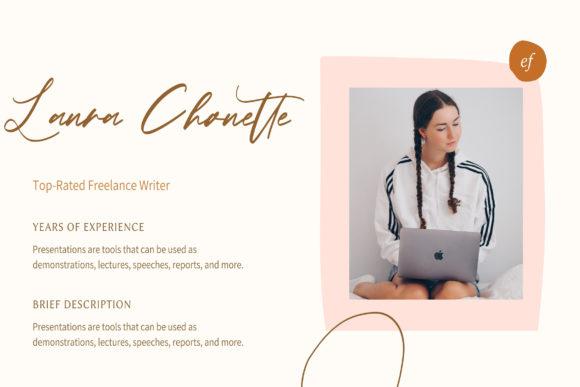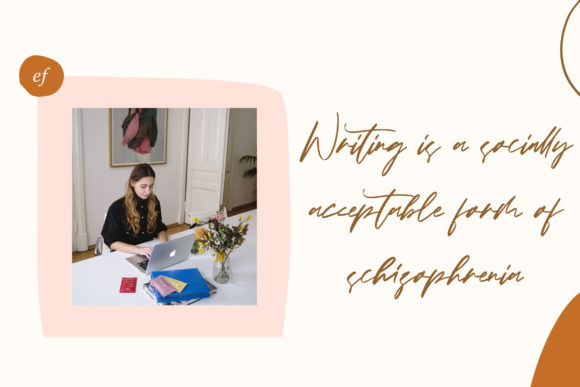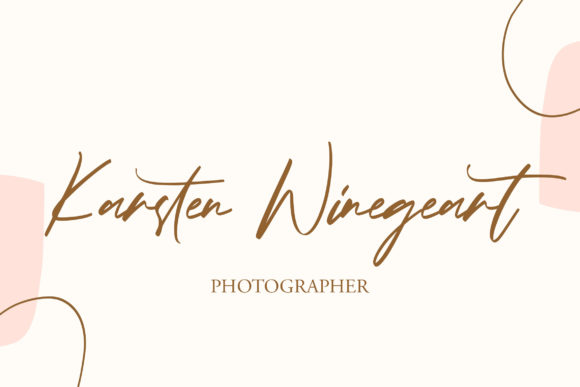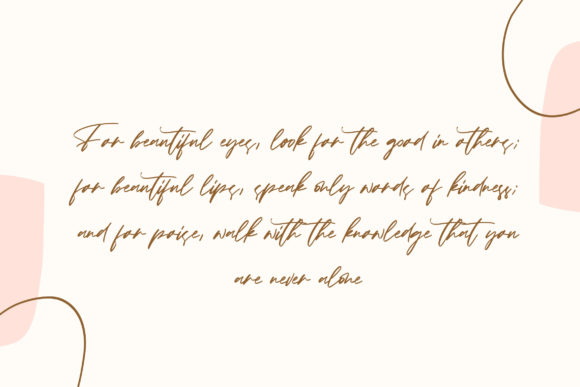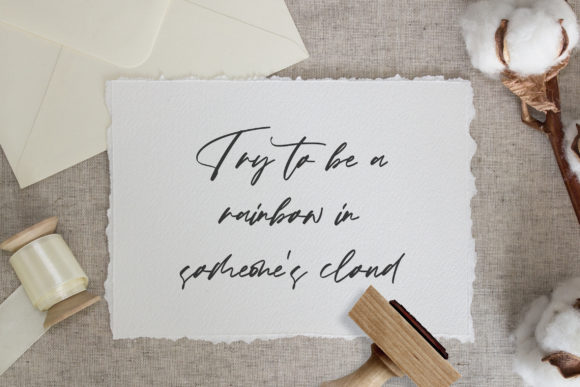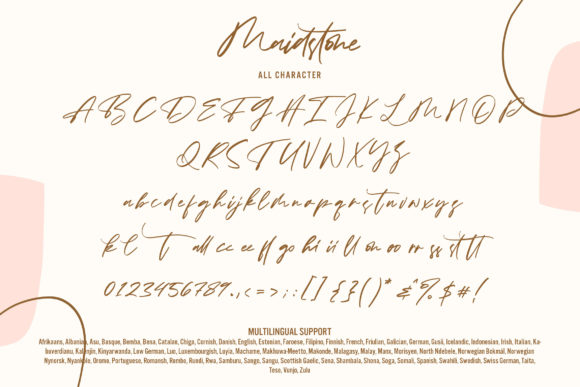
Introduction to Maidstone Font
You know that moment when you’re working on a creative project and you just can’t seem to find the right font to bring your vision to life? The words are flowing, the design is taking shape, but something’s missing. That’s when you stumble upon a hidden gem – a font that elevates your entire project. For many designers, that gem is the Maidstone Font.
This lovely and cursive script font is a game-changer for any creative project. Its high-quality design makes it a valuable resource for designers looking to add a touch of elegance to their work. Whether you’re working on a free download or a commercial project, the Maidstone Font is sure to impress. With its transparent background and versatile style, it’s the perfect addition to any design library.
What sets the Maidstone Font apart is its ability to enhance any creation, from wedding invitations to blog posts. Its high-quality design and free download options make it an attractive choice for designers of all levels. In this article, we’ll take a closer look at the Maidstone Font and explore its many benefits for designers.
Key Features of Maidstone Font
- Includes a comprehensive character set, covering Latin, Cyrillic, and Greek alphabets, making it suitable for multilingual designs.
- Designed with a modern aesthetic, Maidstone Font is perfect for contemporary creative projects that require a clean and sophisticated look.
Honest Review: Maidstone Font
I recently came across the Maidstone Font and was excited to dive in and see what it had to offer. As a designer, I’m always on the lookout for high-quality fonts to use in my creative projects.
What works well: ✨ High-quality design, ✨ Clear and readable text, ✨ Free download option.
However, I did notice a few limitations: ⚠️ Limited character set, ⚠️ Not suitable for large-scale commercial projects.
Overall, I’m impressed with the Maidstone Font. It’s a great resource for designers working on smaller projects or personal creative projects. While it may not be suitable for larger-scale commercial use, it’s a fantastic option for those looking for a high-quality font without breaking the bank.
- Perfect for personal creative projects
- Great for designers on a budget
The Maidstone Font is perfect for a variety of creative projects, including:
- Marketing materials and advertisements